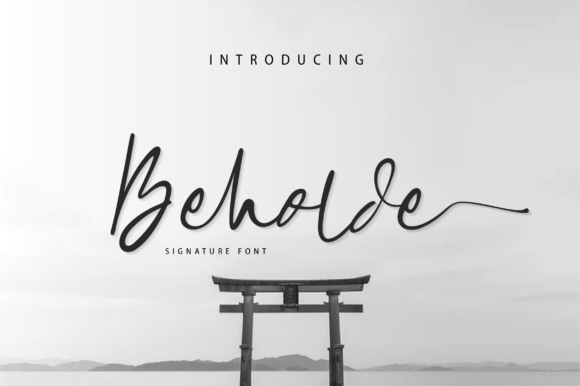
Dive into the captivating world of Beholde, a script font crafted to allure and enchant. Its graceful curves and sweeping strokes will effortlessly add a touch of charm and elegance to your creative endeavors. Whether you're crafting heartfelt messages, designing enchanting invitations, or creating captivating social media posts, Beholde will elevate your words with its irresistible allure.
Indulge in the artistry of Fanastudio's creation, where every letter is a masterpiece. Beholde's unique personality shines through its stylish and charming nature, making it the perfect choice to add a personal touch to your next project.
Unleash your creativity and explore the boundless possibilities with Beholde. Its versatility allows you to effortlessly convey emotions, create stunning visuals, and leave a lasting impression on your audience. Join the league of discerning designers who have fallen in love with Beholde's captivating beauty. Download Beholde today and let your creativity flourish!